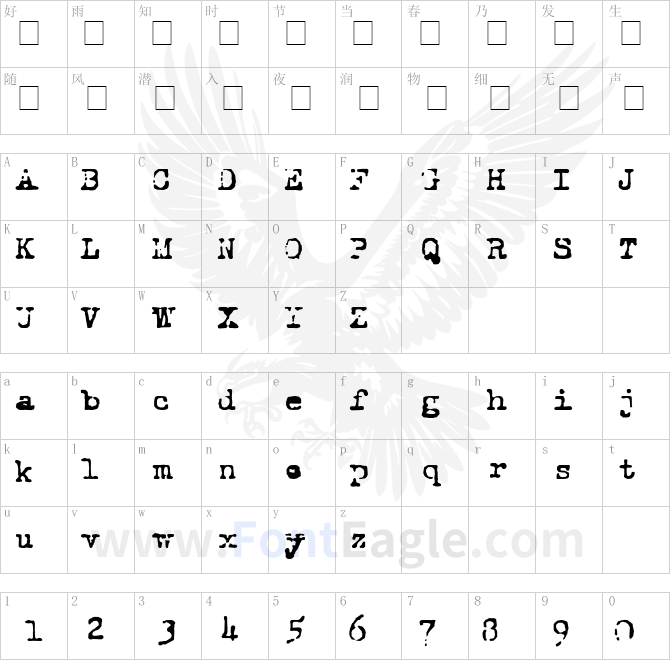
- Font name:Royal Fadeing
- Font Copyright:Based on the typeface of an old Royal brand typewriter I bought at a garage sale for 50 cents. InDigest AvantFonts / PO Box 480 / Denville NJ 07834-0480. Email: